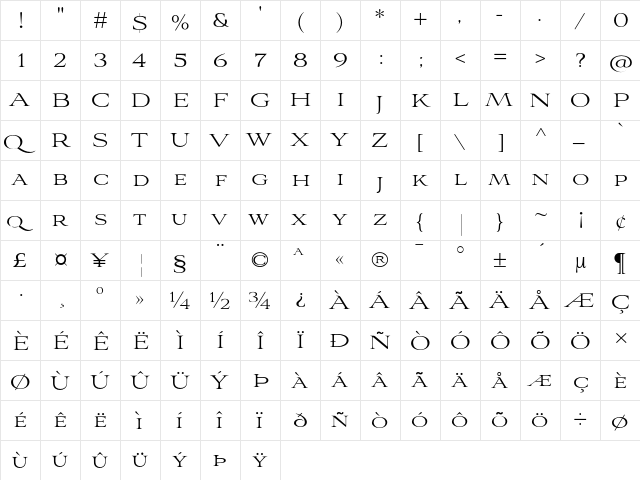
Aviano Light Light
| Foundry | Jeremy Dooley |
Design Context for Aviano Light Typeface
Aviano Light takes a measured approach to typography — its balanced proportions and neutral character make it a reliable workhorse for both digital and print work. The delicate stroke weight brings airiness and refinement to layouts.